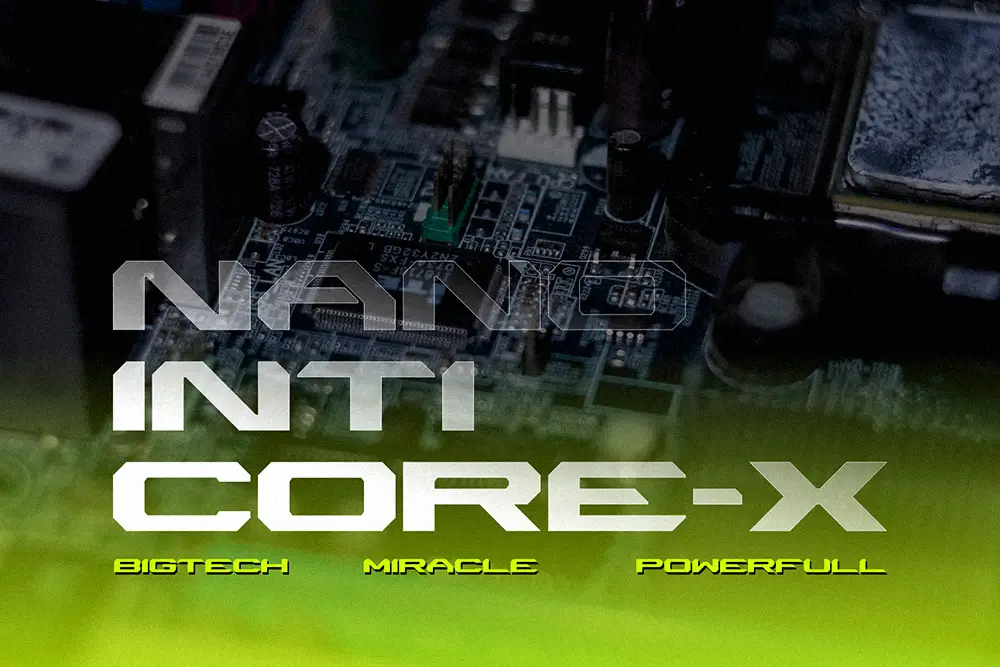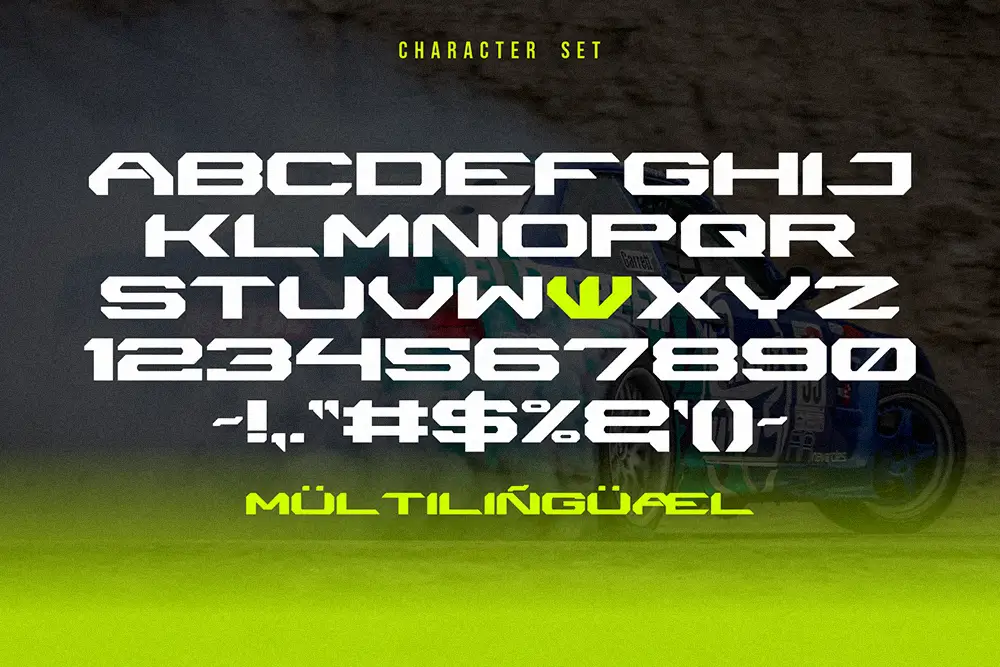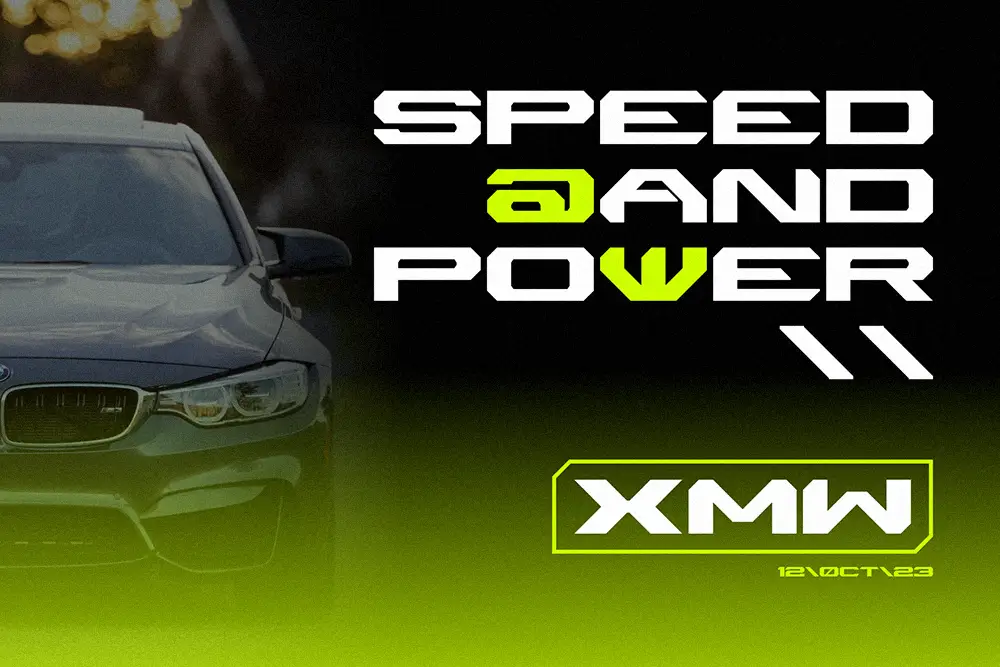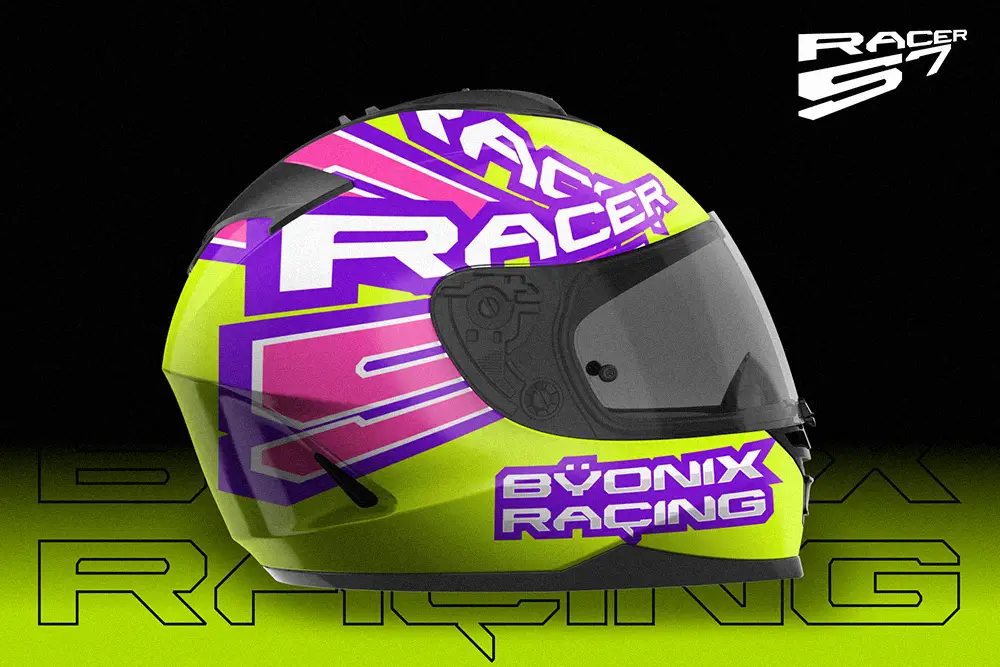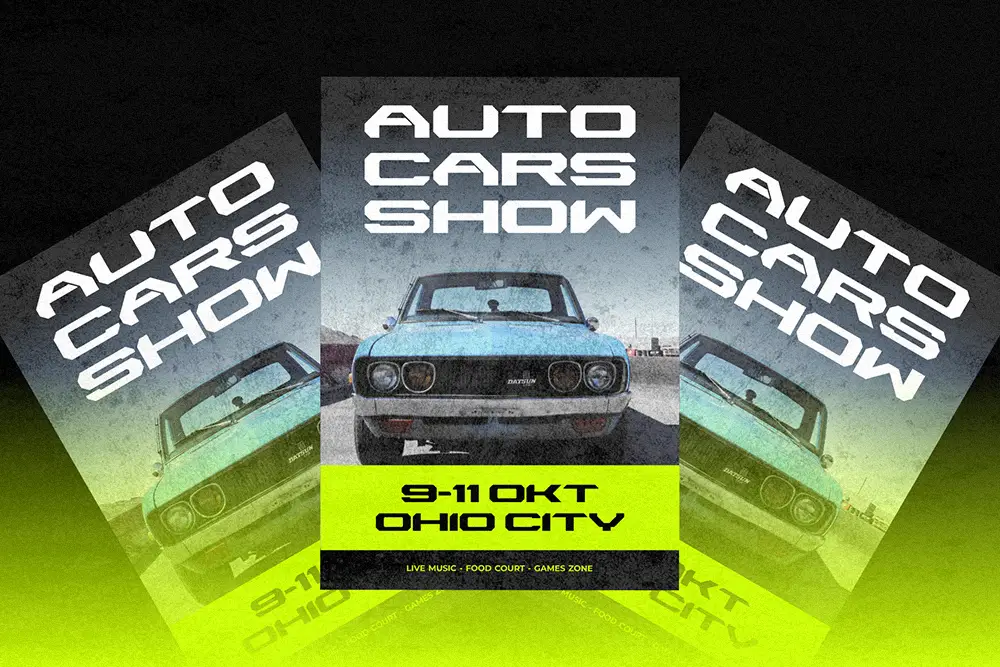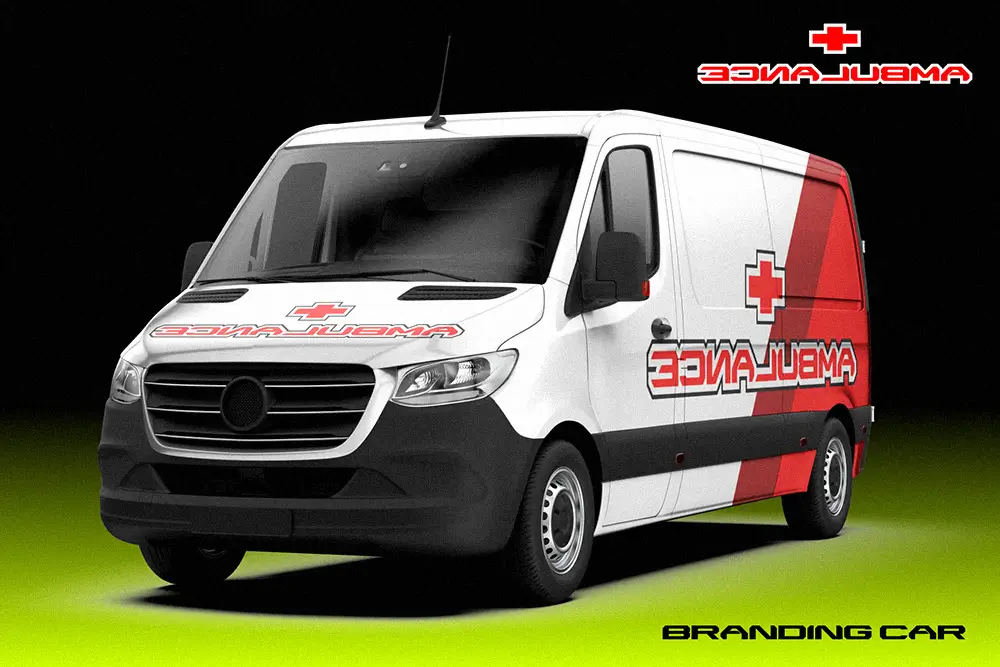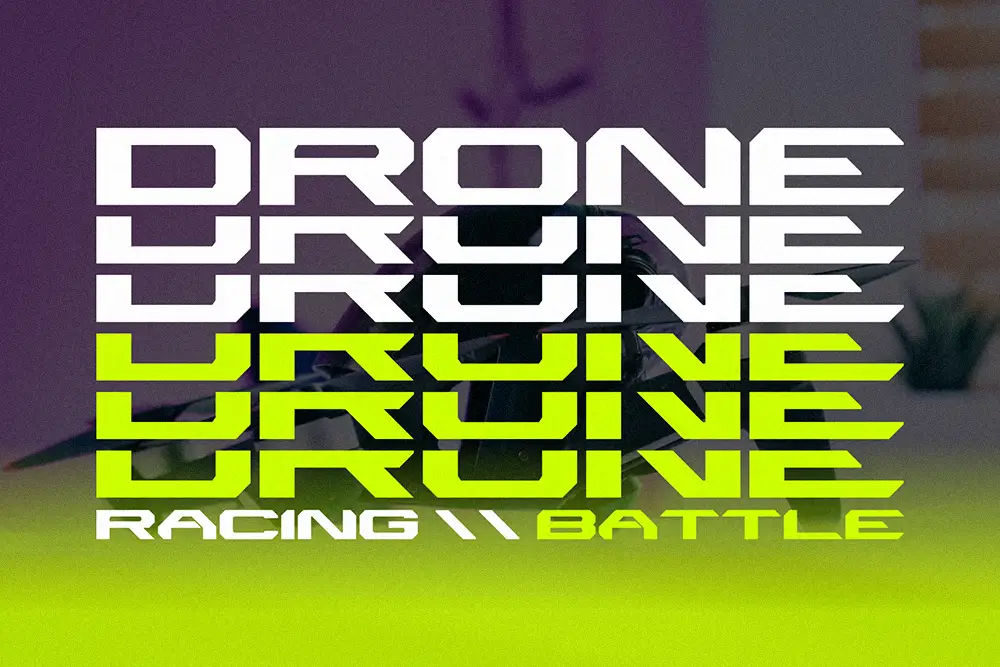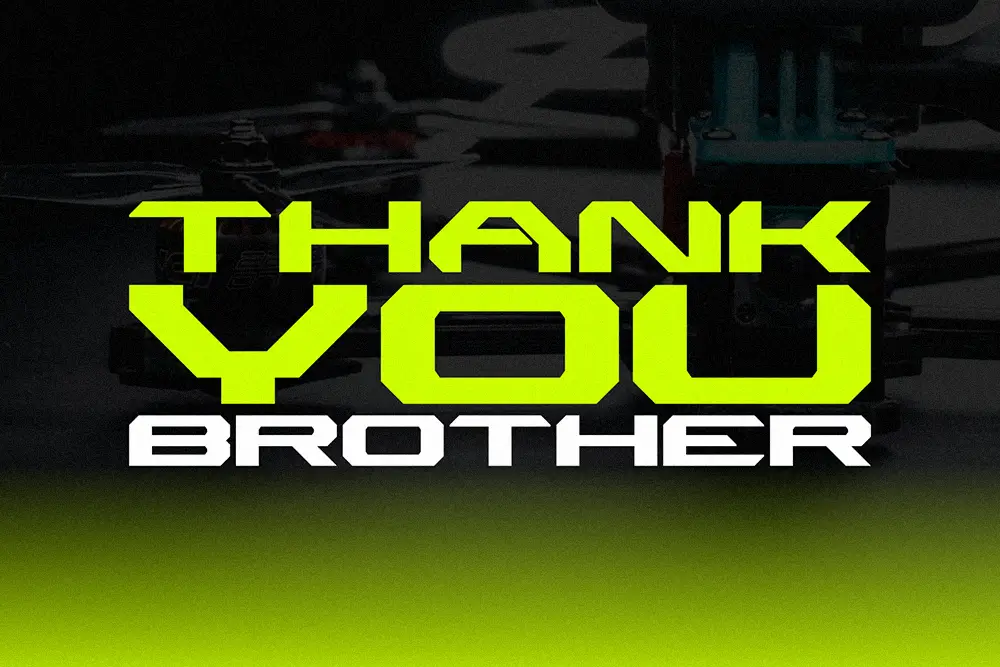
Byonix Racing – Racing Sporty Font for Bold Speed Design
Typography has the power to communicate motion, energy, and adrenaline. That’s why Byonix Racing – Racing Sporty Font was created. With extended strokes, bold geometry, and dynamic shapes, this racing sporty font is designed to capture the thrill of speed and the excitement of competition. From racing logos to sports event posters, Byonix Racing guarantees that your projects stand out with unstoppable energy.
This racing sporty font is engineered for impact. Every character is crafted in all caps, numbers, and punctuations, making it versatile for headlines, scoreboards, event banners, and competitive branding. Its sporty aesthetic, combined with multilingual support, ensures your message connects with audiences worldwide.
Racing Sporty Font with Dynamic Energy
Byonix Racing is more than just another display typeface. It is a racing sporty font created for bold branding and fast-moving designs. With sleek extended forms and sharp edges, it brings the aesthetics of motion to your layouts. Whether you’re working on motorsport graphics, athletic team branding, or esports visuals, Byonix Racing adds velocity and modern power to your typography.
This makes Byonix Racing the go-to racing sporty font for projects where strength and speed are non-negotiable.
Key Features of Byonix Racing – Racing Sporty Font
- Character Set: All Caps, Numbers, Punctuations
- Multilingual Support: Extended Latin coverage for global designs
- Sport-Inspired Shapes: Reflects motion, adrenaline, and competition
- Bold Geometry: Perfect for large headlines and impactful branding
- Versatile Applications: Logos, posters, esports banners, digital media
Why Designers Love Byonix Racing
Designers love Byonix Racing because it embodies what a racing sporty font should deliver: boldness, clarity, and adrenaline.
- Instant Impact: Grabs attention immediately with strong all-caps style
- Legibility at Scale: Perfectly clear in stadium banners and digital campaigns
- Speed-Inspired Style: Every glyph communicates movement and power
- Professional Grade: Designed for sports, esports, and high-energy branding
Racing Sporty Font for Logos and Branding
When creating logos for motorsports teams, racing events, or fitness campaigns, Byonix Racing delivers identity and boldness. This racing sporty font is built for logos that need to dominate. Its extended width and geometric edge make it ideal for strong wordmarks and impactful branding.
Racing Sporty Font for Posters and Headlines
Posters and advertising require fonts that stop people in their tracks. Byonix Racing excels here. This racing sporty font is built for large formats—race posters, bold headlines, esports campaigns, and competitive event banners.
Its dynamic shapes ensure your typography doesn’t just say words—it communicates energy, competition, and motion.
Byonix Racing in Esports and Digital Media
Esports visuals need to feel strong and futuristic. Byonix Racing is the perfect racing sporty font for Twitch overlays, YouTube thumbnails, gaming logos, and event branding. Its all-caps set makes designs feel unified and energetic, while numbers and punctuations allow for scoreboard-style layouts.
Its multilingual support also ensures it connects with fans globally.
- Font Name: Byonix Racing – Racing Sporty Font
- Character Set: All Caps, Numbers, Punctuations
- Multilingual Support: Yes
- Category: Racing Sporty Font / Sport Display Font
- Best Uses: Logos, Posters, Racing Events, Esports, Advertising, Headlines
Why Byonix Racing is the Racing Sporty Font You Need
Typography is like racing—it’s about speed, visibility, and winning the audience. Byonix Racing combines all these into one bold package. As a racing sporty font, it’s versatile enough for both physical and digital projects, from banners to esports, from posters to logos.
If you want your designs to feel like victory, Byonix Racing is the answer.